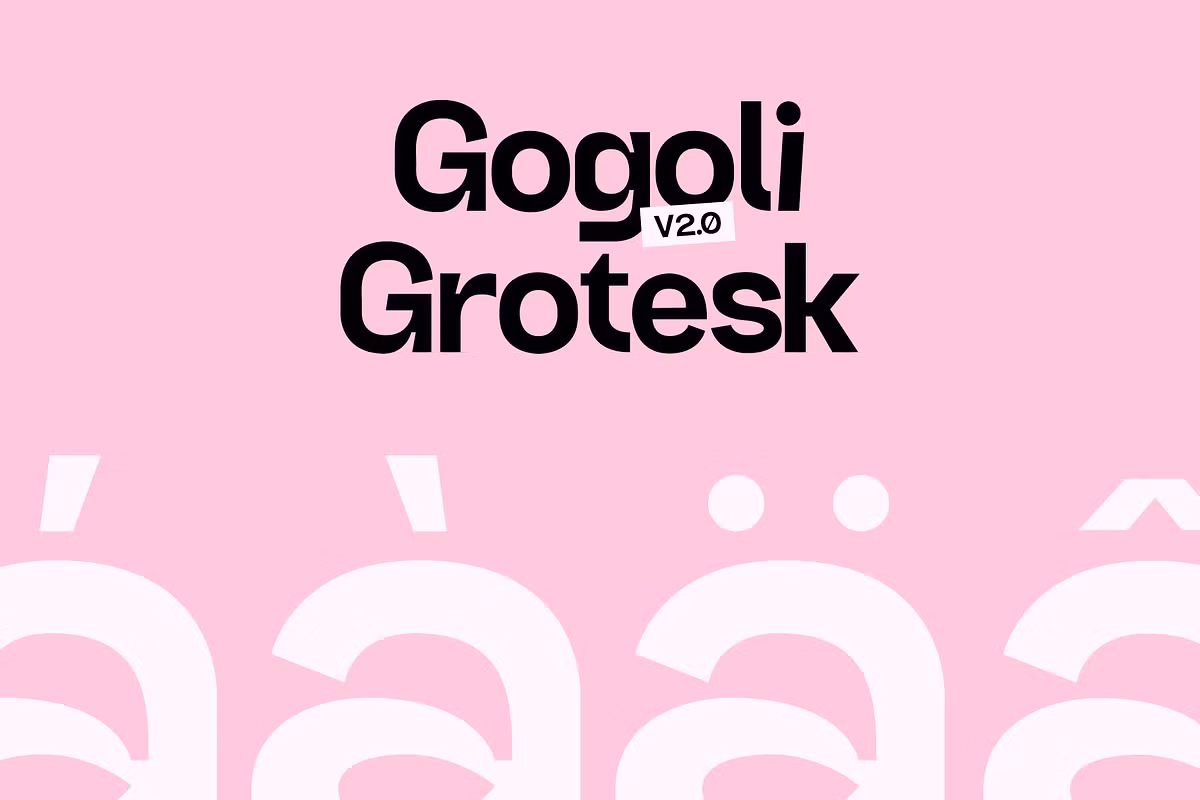
Gogoli 2.0 Grotesk Type Free Download is a sleek and modern sans-serif typeface that embodies minimalism and clarity. With its clean lines, geometric structure, and contemporary style, this font is perfect for branding, editorial layouts, websites, headlines, and logos that demand a modern and professional look.
Whether you're creating a sleek website design or building a modern brand identity, Gogoli 2.0 provides the crispness and readability you need for impactful typography. It’s the ideal font for designers who appreciate simplicity without sacrificing style.